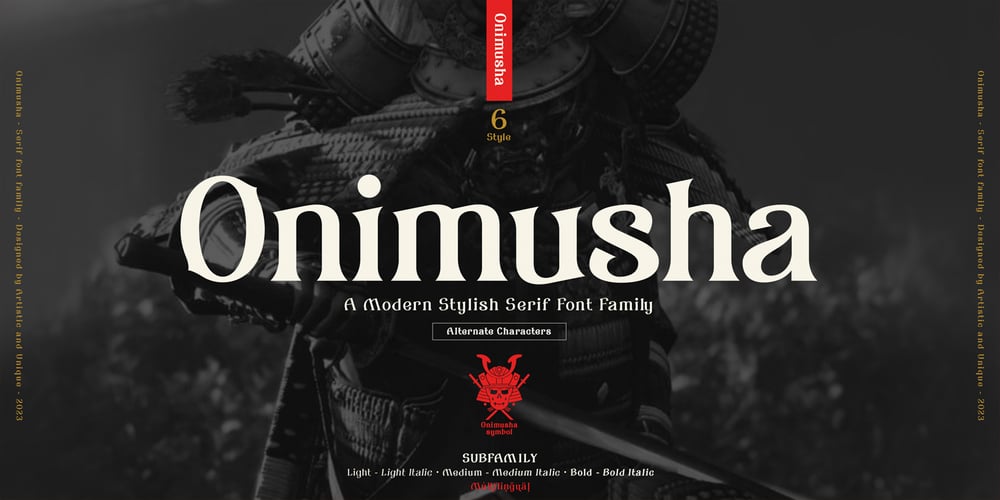
Onimusha
Onimusha font
Onimusha Font Family was designed by Osman Taner Kucukgenc and published by Artisticandunique. Onimusha contains 6 styles and family package options. Onimusha – Serif font family – 6 Styles – Multilingual supports.Onimusha is an elegant serif font family with different alternative character designs. It has a unique emblem.The inspiration for the characters is based on ancient Japan, samurai philosophy and Far Eastern mysticism. Hard and pointed ends represent a Katana, and elegant soft turns represent the aesthetic understanding.This font provides flexibility in all your projects with the alternatives it offers you with its multiple language options, 6 styles and rich glyph options. You will have the opportunity to enrich the content of your projects with alternative characters.According to the purpose of use in typographic compositions that you will create with the aesthetic structure of alternative characters; You can enrich your titles in books or magazines, and your logos in branding.Especially for editorials, magazines, books, branding, packaging, logo design, web design, headlines, movie and game titles etc.If you’re looking for a font with stylistic alternatives, Onimusha serif font might meet your needs.With this font you can create your unique designs.If you have a question, please contact me.Have a good time.